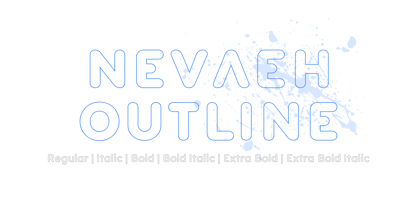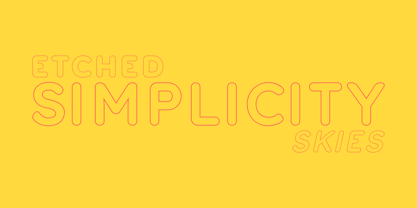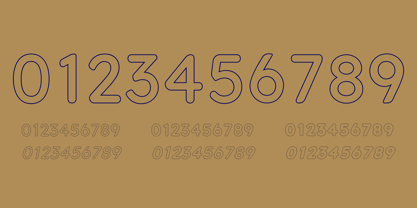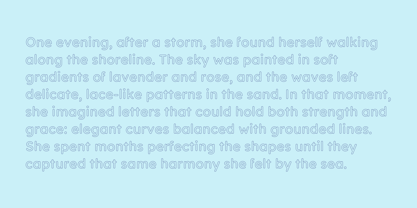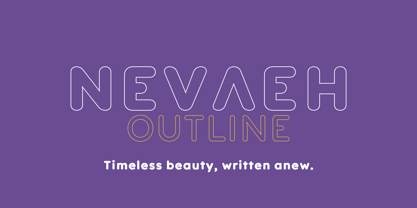
Nevaeh Outline
von Kufic Studio
Die Schriftfamilie Nevaeh Outline wurde von Ahsan Ahmedzai entworfen und von Kufic Studio veröffentlicht. Nevaeh Outline enthält 6 Stile und Familienpaketoptionen.
Nevaeh Outline is a modern and stylish outline version of the Nevaeh font family, combining clean lines with timeless elegance. Its hollow letterforms create a bold yet refined look, making it perfect for logos, posters, branding, packaging, and creative display projects. As part of the Nevaeh collection, Nevaeh Outline adds a contemporary edge while keeping the graceful essence of the original font.